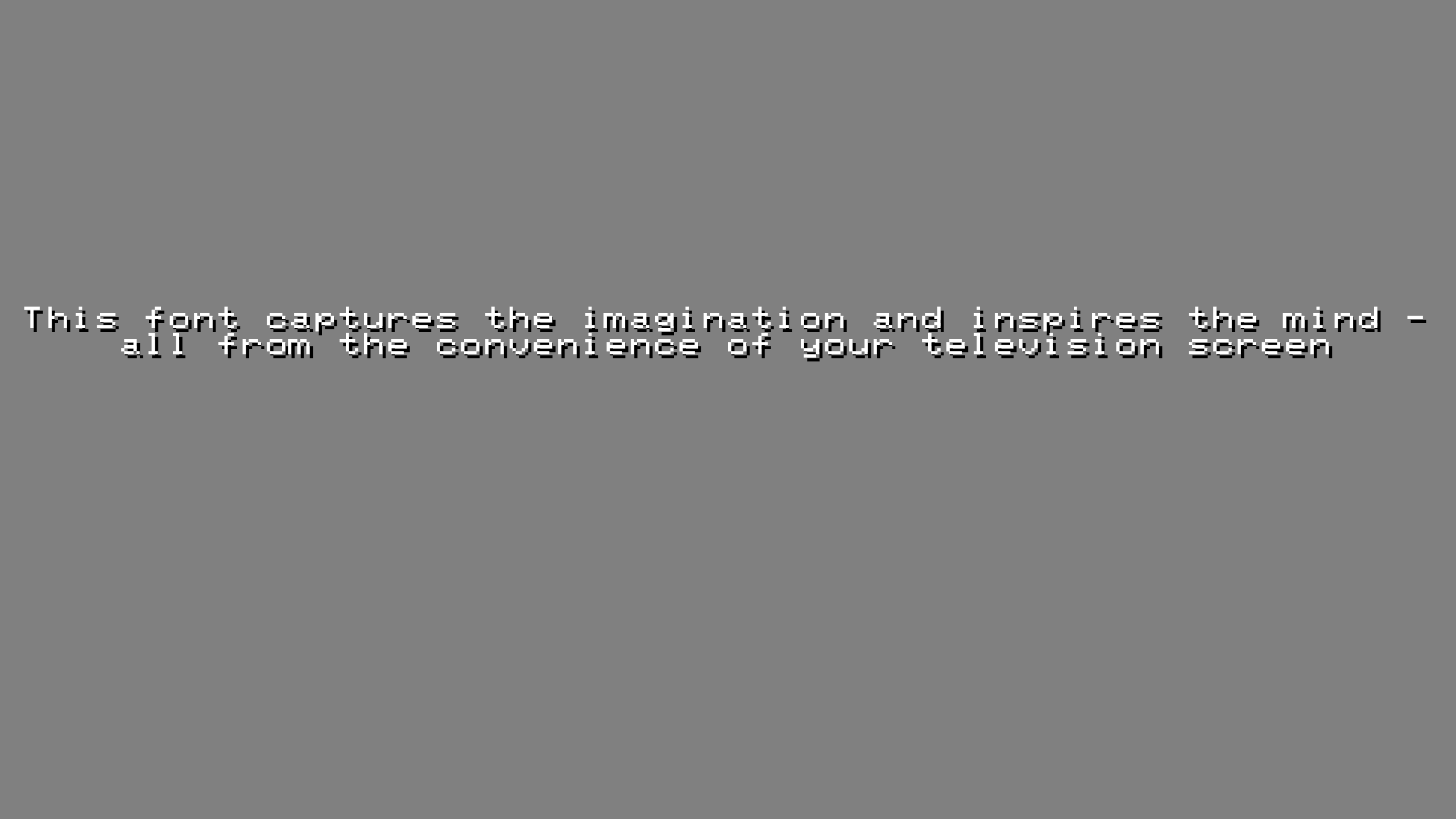
Here is the font used for Compton's Interactive Encyclopedia, for the Sega CD / Mega CD from the 1990s. Might be useful for someone, hopefully!(C) 1992, 1994 Compton's Newmedia Inc., (C) 1994 Compton's Learning Company. Both divisions of Tribune Publishing.